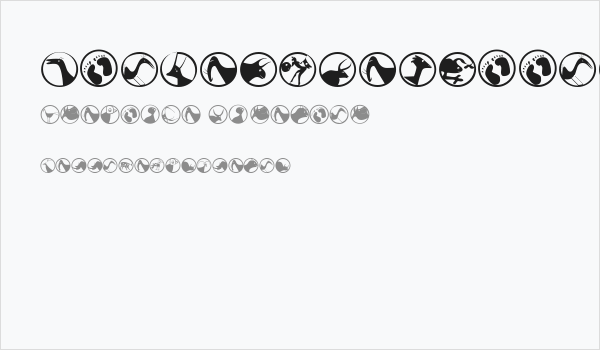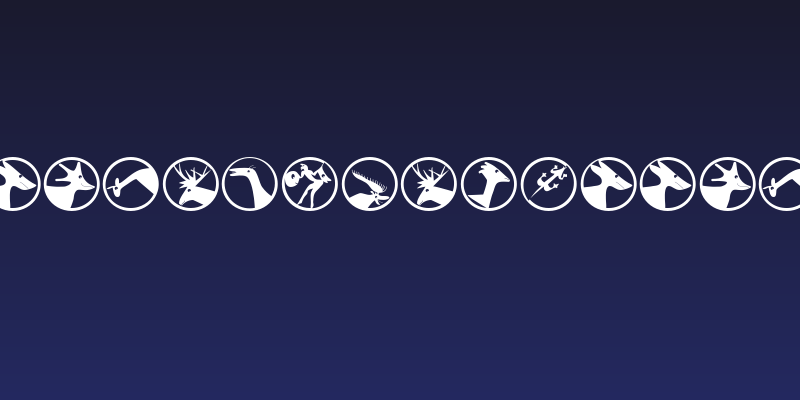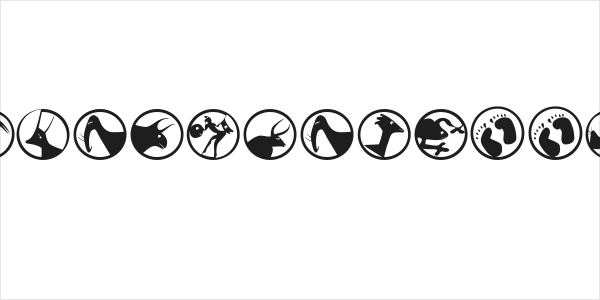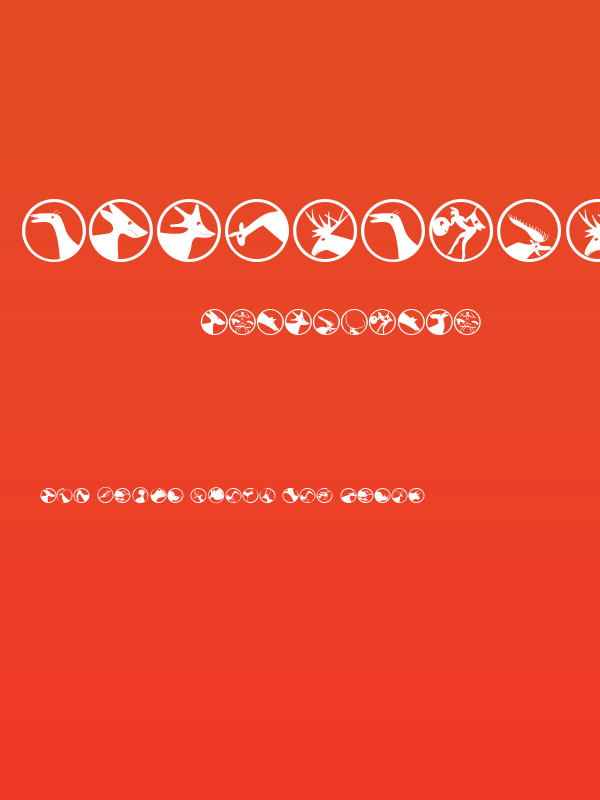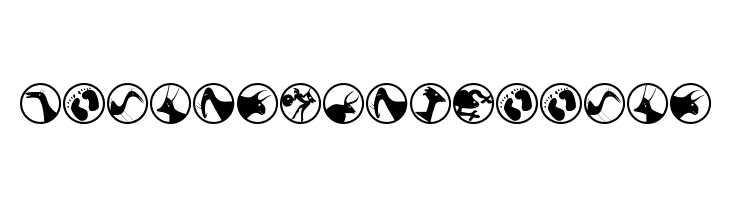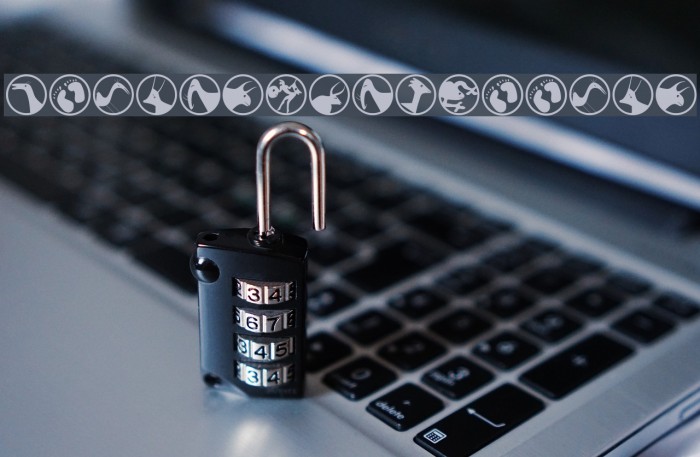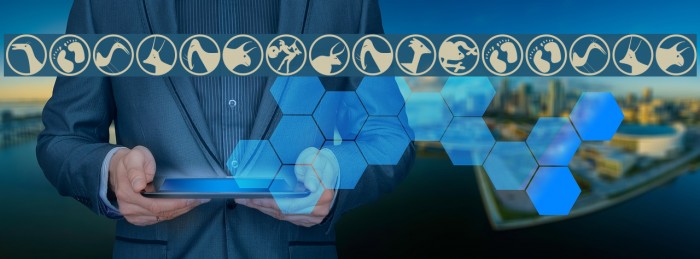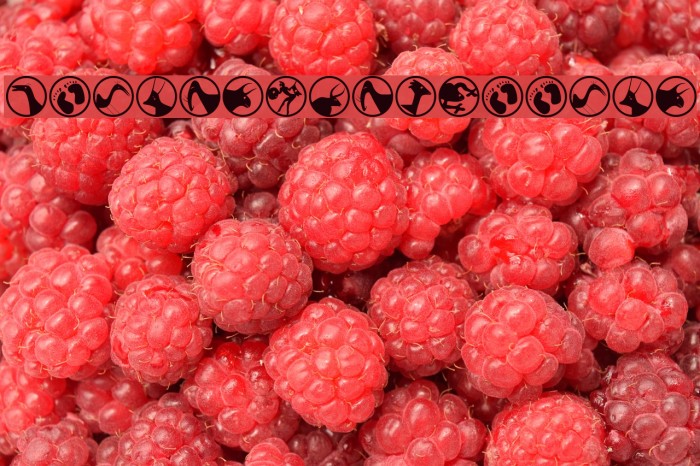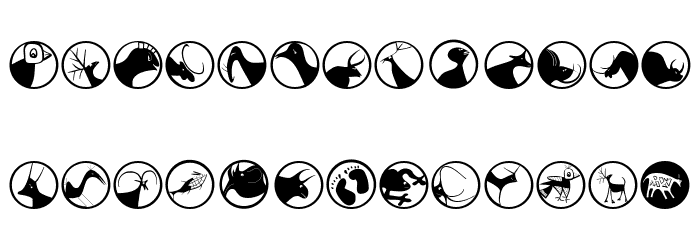
StonesAgeButtons Font
StonesAgeButtons Description
A decorative dingbat font featuring stylized animal and nature silhouettes inside circular buttons, inspired by prehistoric or cave art motifs. Each glyph is a unique pictogram rather than a traditional letterform.
| Overall Style | Decorative, Primitive, Thematic |
| Use Case | Icons, Logos, Themed headlines, Educational graphics |
| Proposed Projects | Educational materials, children's books, themed posters, museum signage, creative branding, icon sets. |